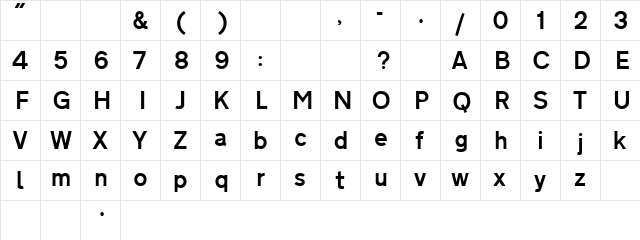
Roadgeek Transport Medium Regular
Design Context for Roadgeek Transport Medium Typeface
Roadgeek Transport Medium has the bold swagger of sports branding: strong, assertive letterforms designed to dominate headlines and jerseys alike.
A natural choice for gym brands, fantasy sports, jersey lettering, and action-driven headlines.
Pro Tip: Use Roadgeek Transport Medium in all-caps headlines where its athletic energy can fully express itself. Pair with a solid, simple sans for supporting text.